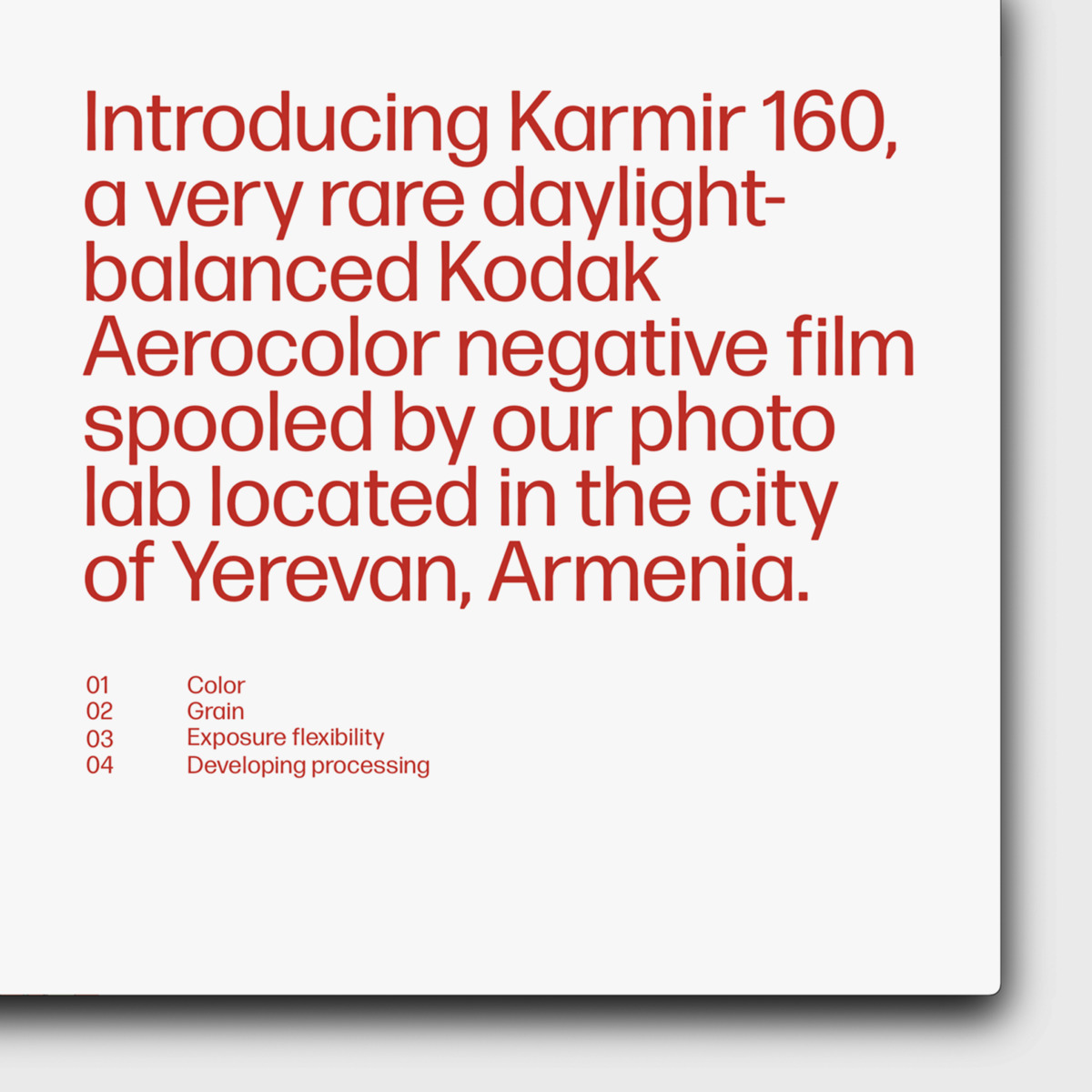
Karmir is a chain of photo labs (coupled with coffee houses) with spots in Yerevan, Armenia, and Belgrade, Serbia. At Karmir, one can develop, print, or purchase photo or video films, as well as rent an analogue camera. The typography on the project’s website is done with the help of Forma DJR by David Jonathan Ross.
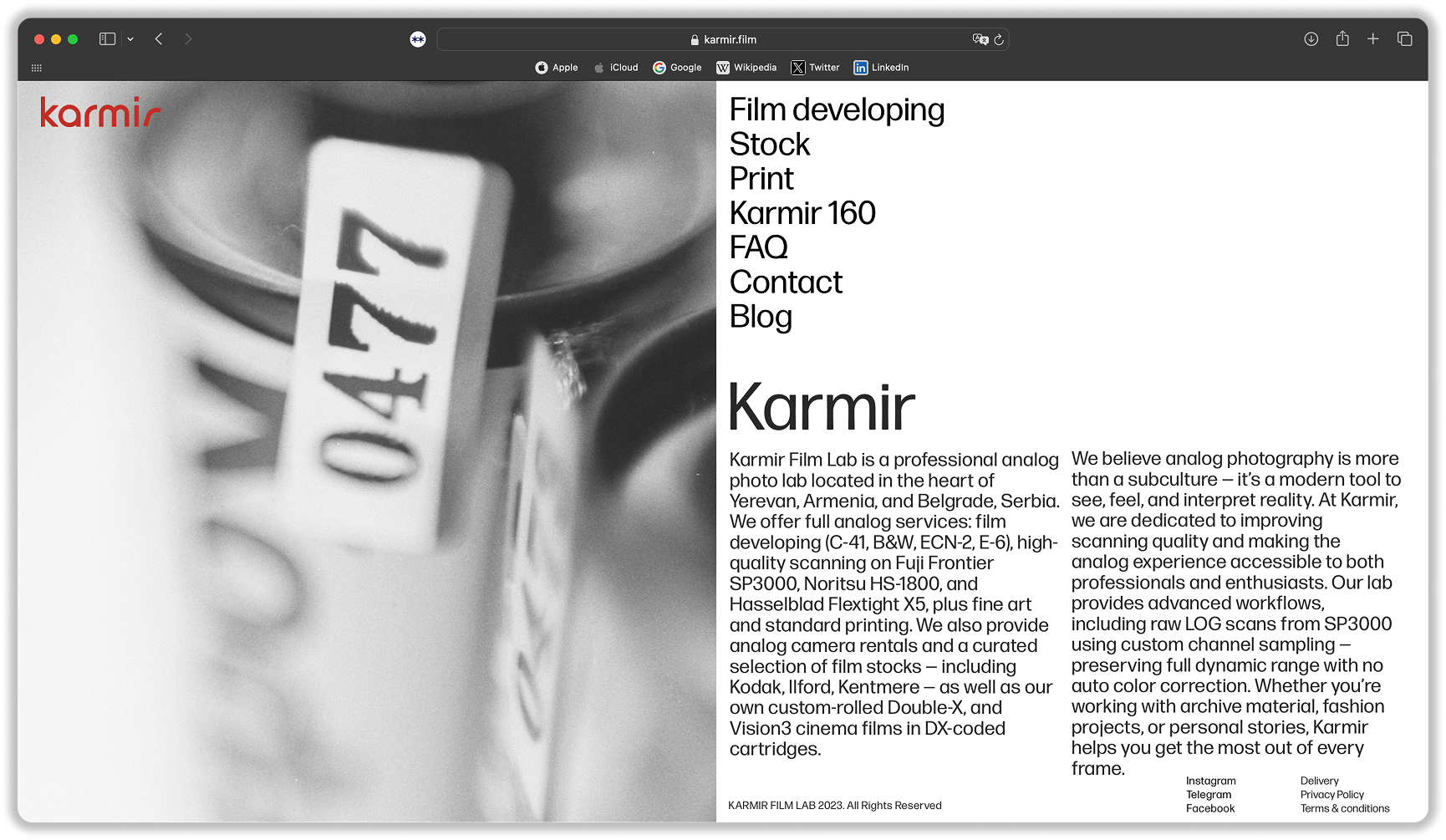
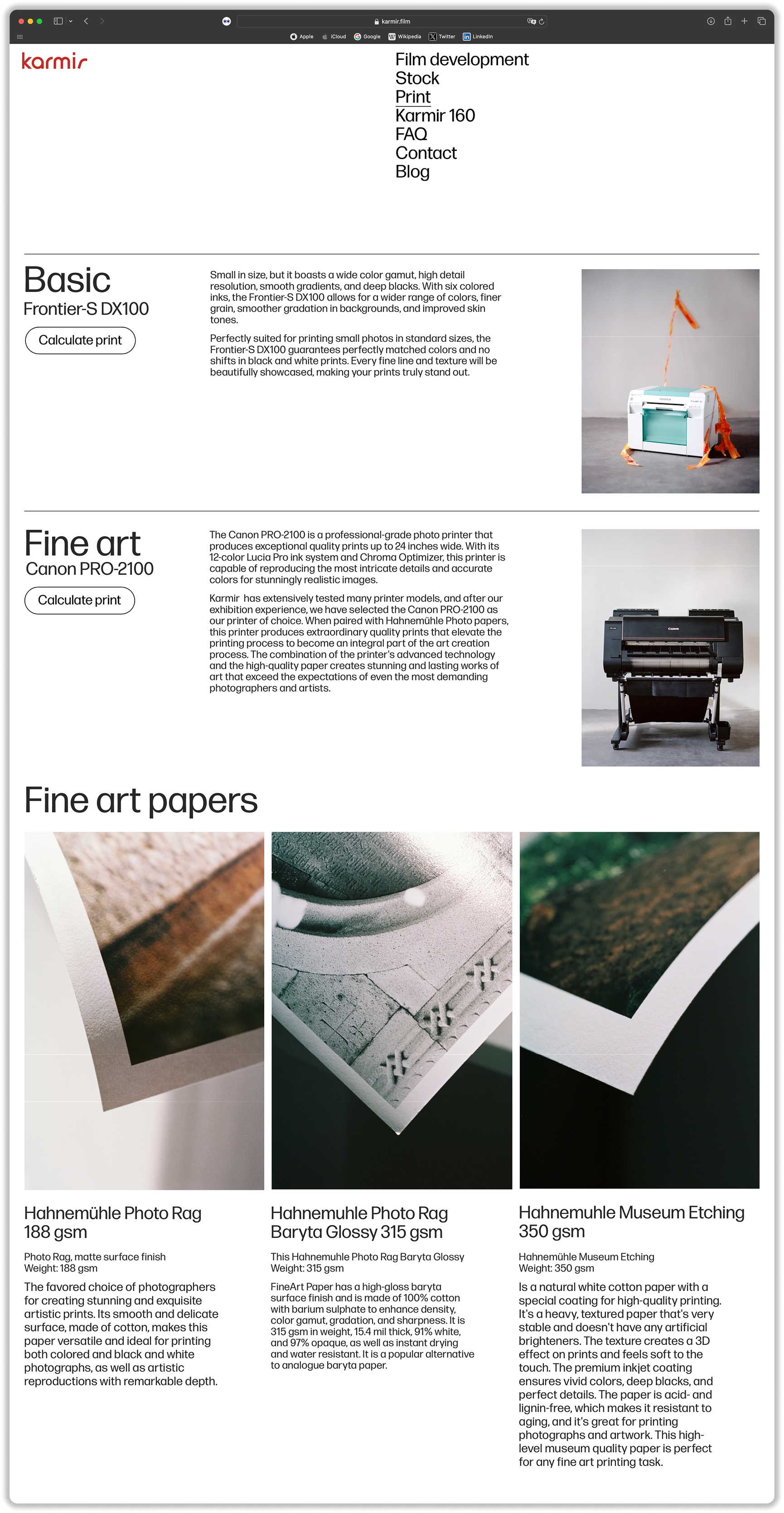
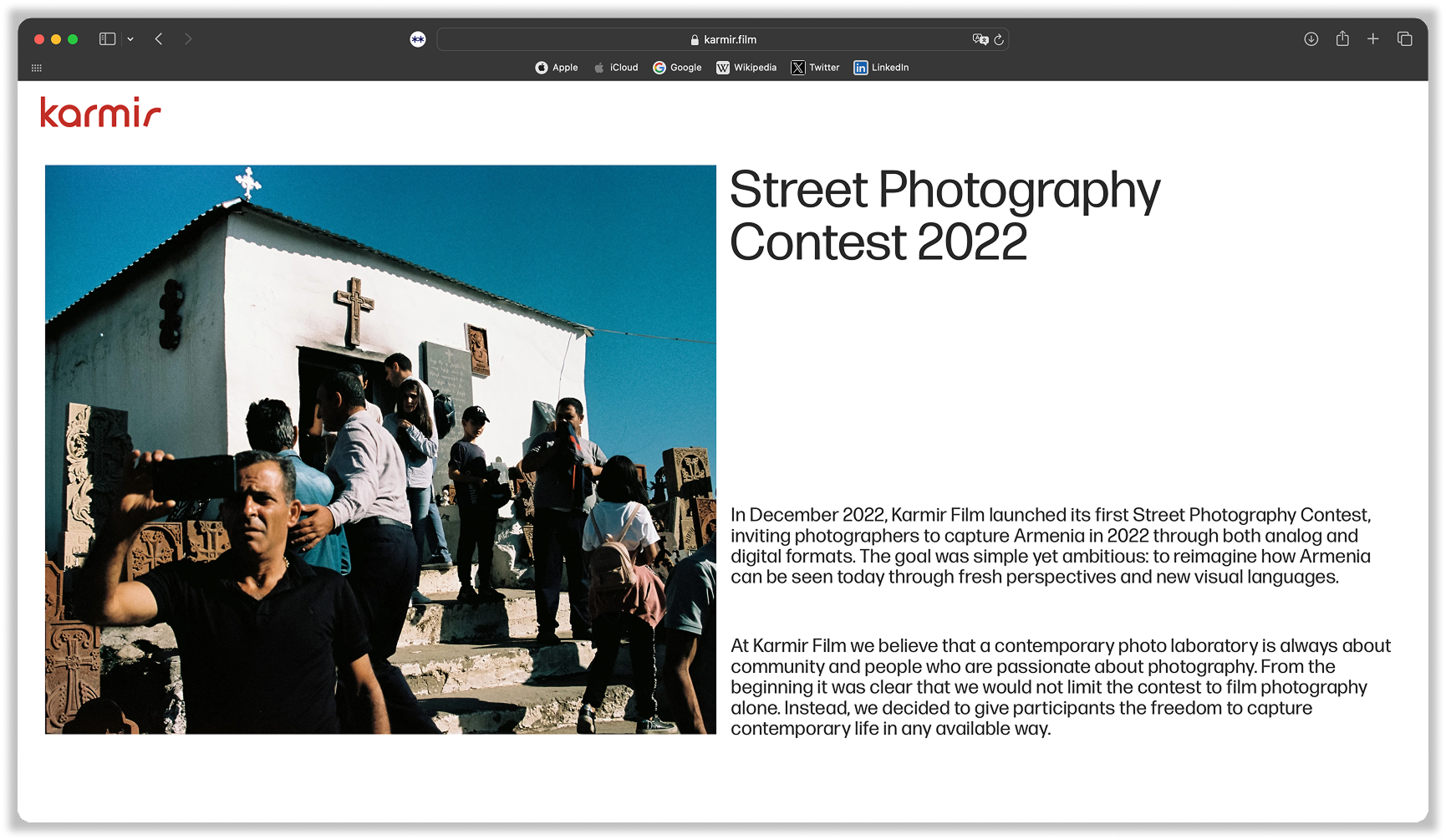
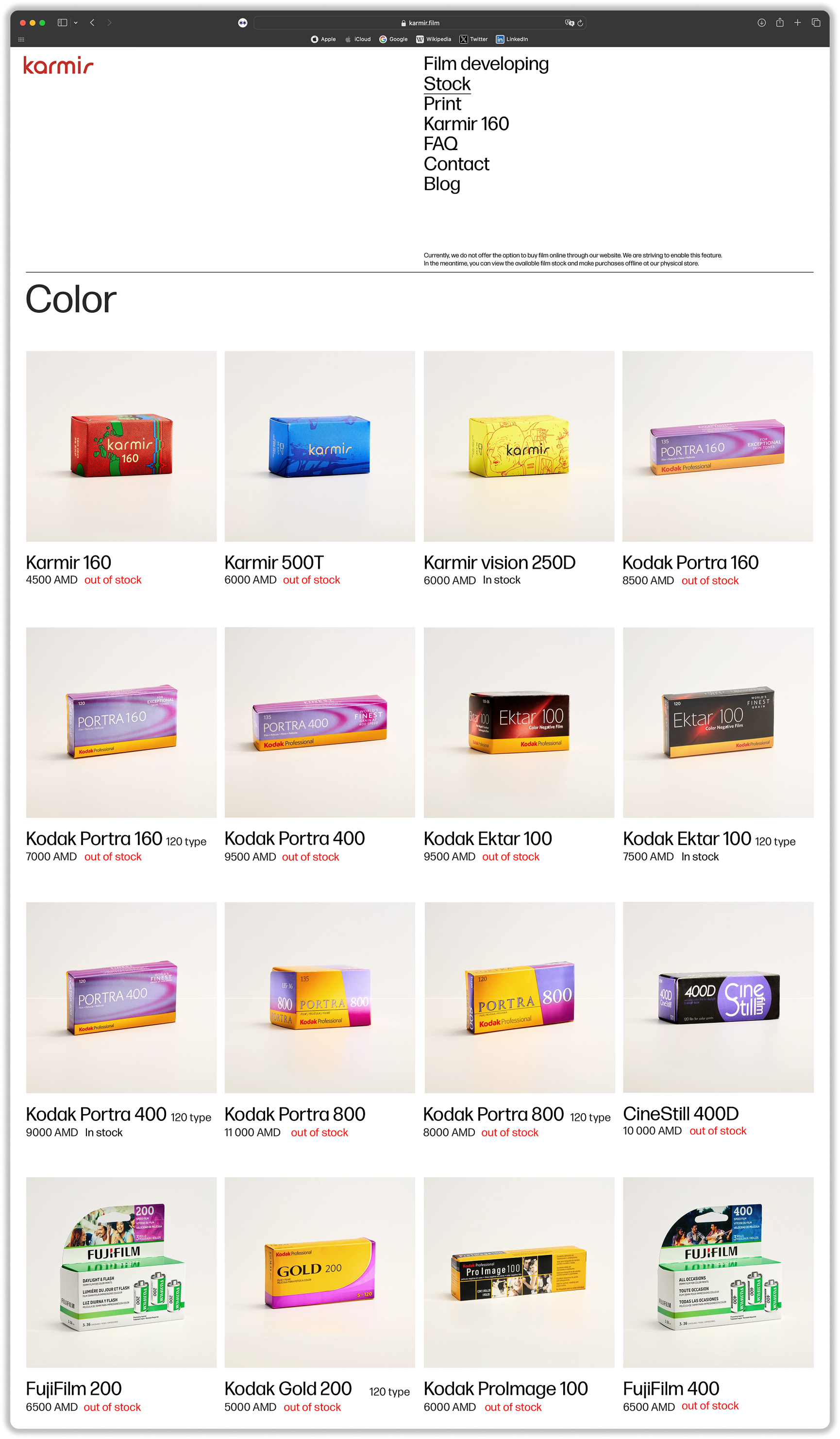
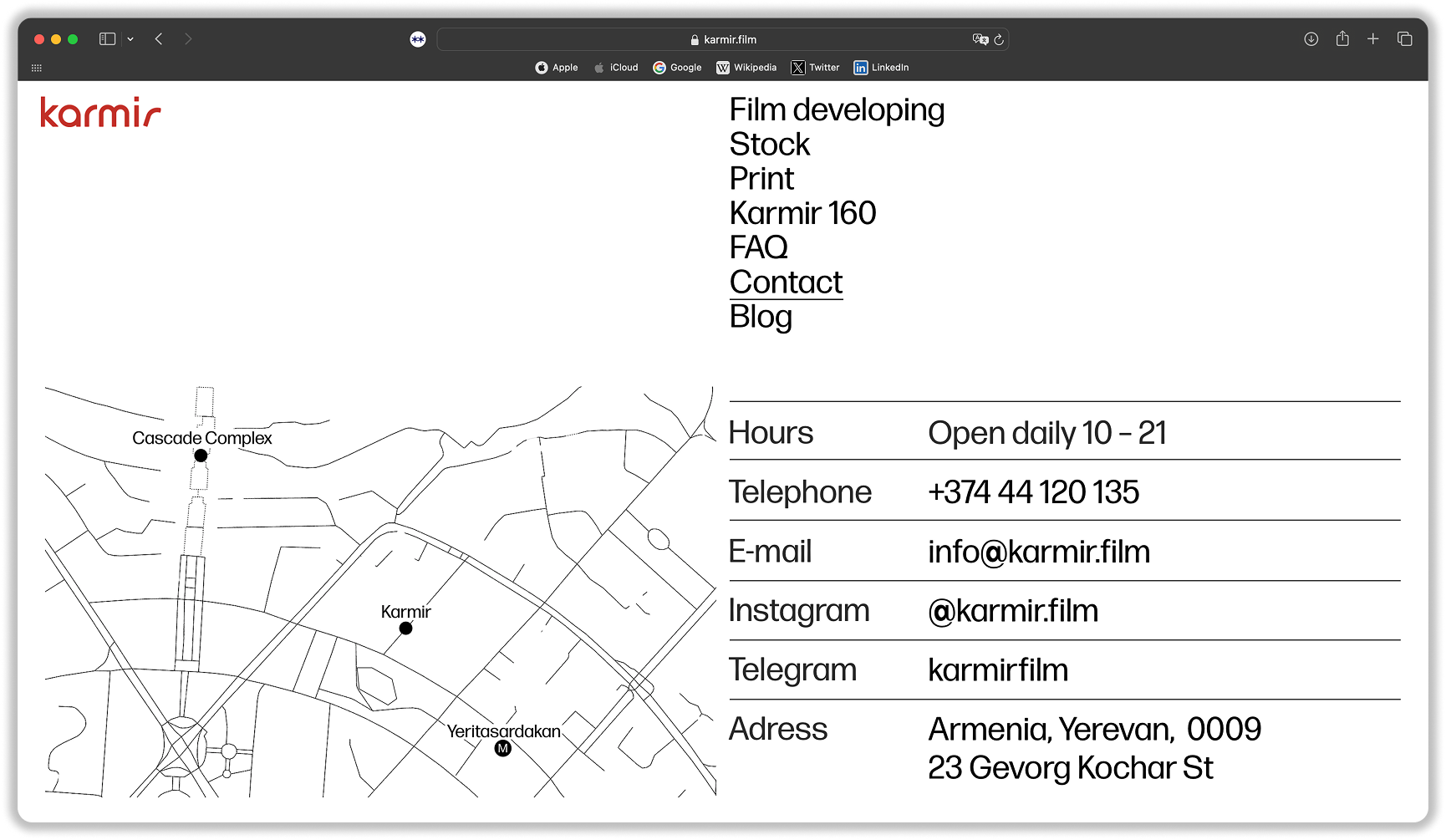
Forma DJR is a revival of the Nebiolo foundry’s typeface of the same name, designed (among other things) as a response to Helvetica. Beyond its prototype, Forma DJR also embraces the 1960s-1970s trend of sans serif type, famous for its tight letter spacing and rounded angles. For these subtleties not to be lost at either really large or really small sizes, Forma comes in five optical sizes, from Micro (less than 8pt) to Banner (from 72 pt).